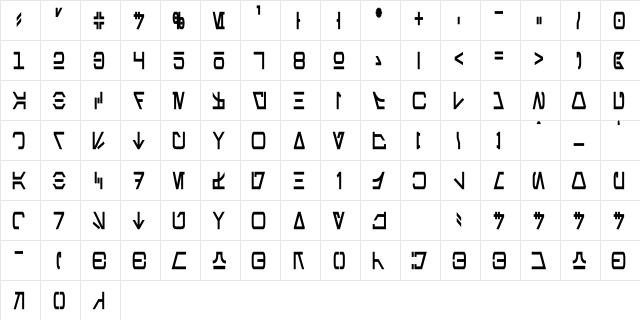
Aurebesh Condensed Bold
Design Context for Aurebesh Condensed Typeface
Aurebesh Condensed is a composed and adaptable typeface that performs quietly and consistently across a wide range of design contexts. The heavy weight commands attention and anchors typographic hierarchies. Its narrow stance lets it pack a punch even in space-constrained designs.